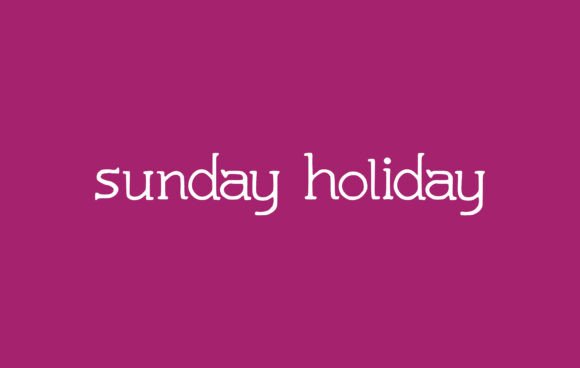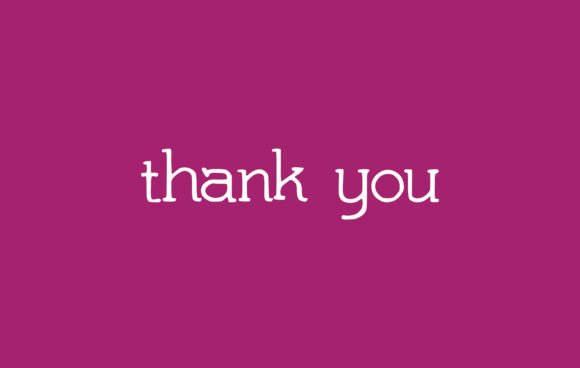
Begonia Font: Elevate Your Designs with a Romantic Touch
In the world of typography, a well-crafted font can make all the difference in bringing your creative ideas to life. If you’re a designer, crafter, or simply someone who appreciates beautiful typography, you’ll love exploring the charming Begonia font. This authentic handwritten font boasts a romantic touch that’s sure to capture your heart and take your designs to new heights.
What Makes Begonia Font Special?
Begonia font is an expertly designed typeface that exudes elegance and sophistication. Its unique blend of classic and modern elements makes it an excellent choice for a wide range of design projects. Whether you’re working on magazine headlines, social media graphics, branding materials, wedding invitations, or cards, Begonia font is sure to impress.
Key Features of Begonia Font
- Authentic Handwritten Style: Begonia font is crafted with love and care to mimic the natural flow of handwritten text. Its authentic feel adds a personal touch to your designs, making them more relatable and engaging.
- Romantic Touch: The font’s romantic undertones evoke feelings of warmth, elegance, and sophistication. This makes it perfect for designs that require a touch of whimsy and charm.
- Legibility: Despite its ornate appearance, Begonia font is remarkably legible, making it suitable for use as both title and body text.
- Versatility: This font is incredibly versatile and can be used for a wide range of design projects, from print materials to digital applications.
Design Possibilities with Begonia Font
The possibilities are endless when working with Begonia font. Here are a few ideas to get you started:
- Magazine Headlines: Use Begonia font to create eye-catching headlines that grab readers’ attention and draw them into your story.
- Social Media Graphics: Add a touch of elegance to your social media posts with Begonia font. It’s perfect for creating engaging graphics that stand out in crowded feeds.
- Branding Materials: Establish your brand’s identity with Begonia font. Its unique style will help you differentiate your brand and leave a lasting impression on your audience.
- Wedding Invitations: Make your wedding invitations truly special with Begonia font. Its romantic feel sets the tone for a beautiful and memorable celebration.
- Cards and Stationery: Use Begonia font to create stunning cards and stationery that showcase your personality and style.
Tips for Using Begonia Font Effectively
To get the most out of Begonia font, keep the following tips in mind:
- Experiment with Font Sizes: Begonia font looks great in various sizes, from large headlines to smaller body text. Experiment with different font sizes to find the perfect balance for your design.
- Pair with Complementary Fonts: Combine Begonia font with complementary fonts to create visual interest and add depth to your design.
- Play with Colors: Begonia font comes in a range of colors, so don’t be afraid to experiment and find the perfect hue for your design.
Begonia font is a beautiful, authentic handwritten typeface that adds a romantic touch to any design project. Its unique blend of classic and modern elements makes it an excellent choice for designers, crafters, and anyone looking to elevate their creative ideas. With its legibility, versatility, and range of design possibilities, Begonia font is sure to become a true favorite in your typography arsenal.